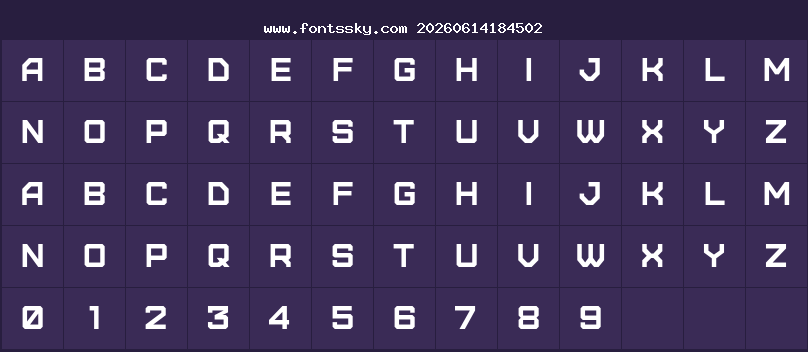
• Font Name: Furore
• Full Font Name: Furore
• PostScript Name: Furore
• Designer: Daniel Pouzeot, Jovanny Lemonad
• Manufacturer: Daniel Pouzeot, Jovanny Lemonad
About Furore.otf
Furore.otf is a modern, elegant sans-serif font designed for ultimate readability and visual harmony. Perfect for branding, headlines, web design, and print materials.